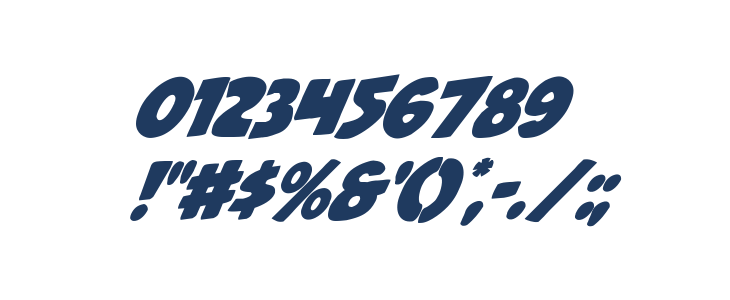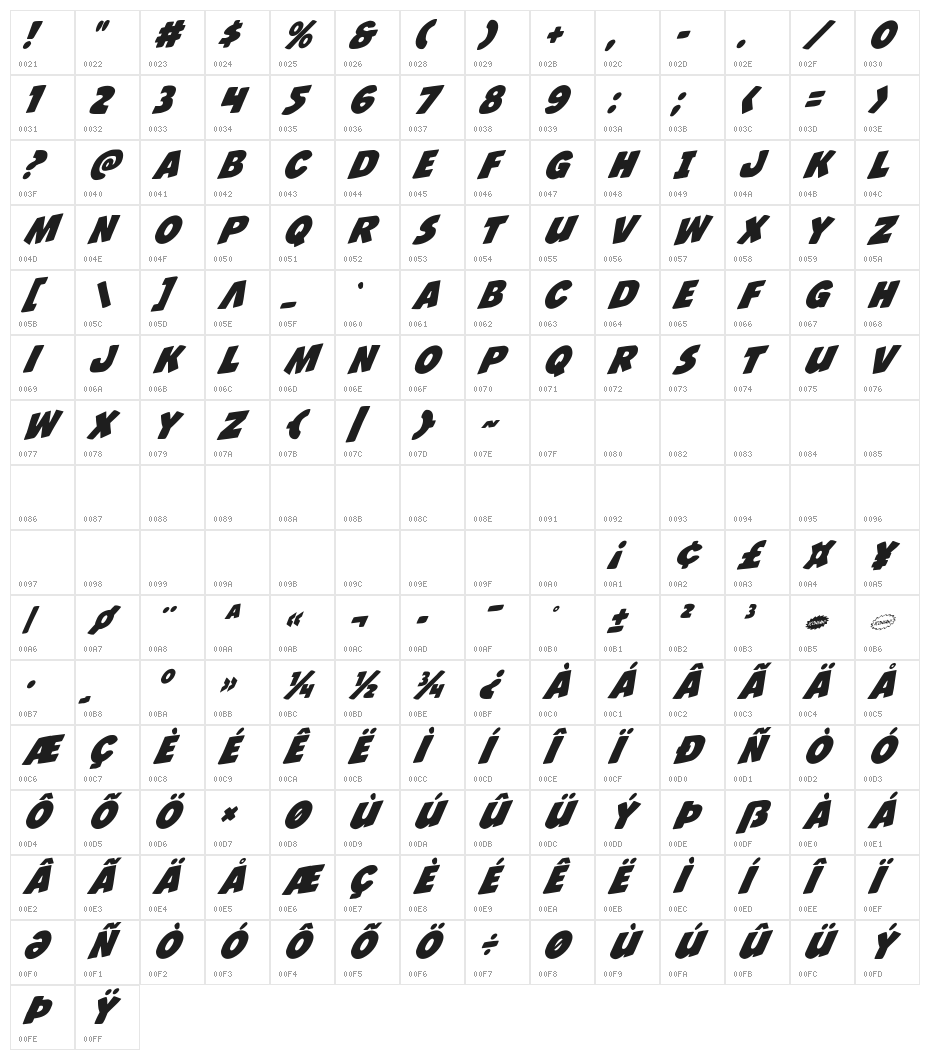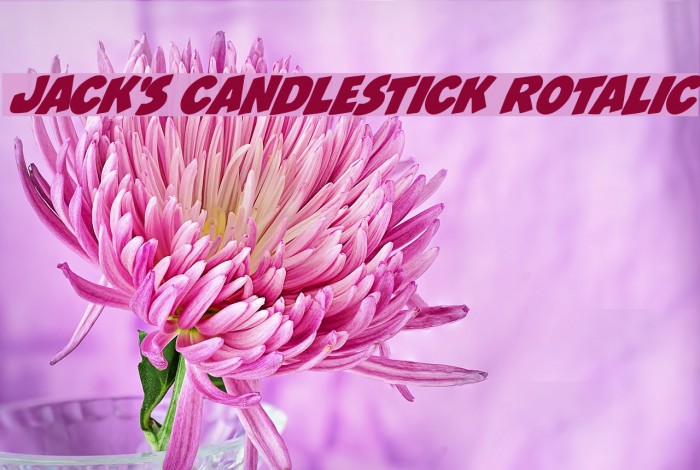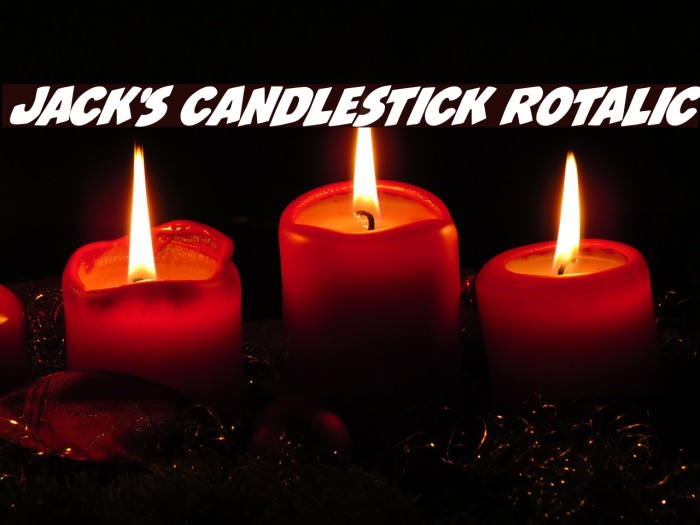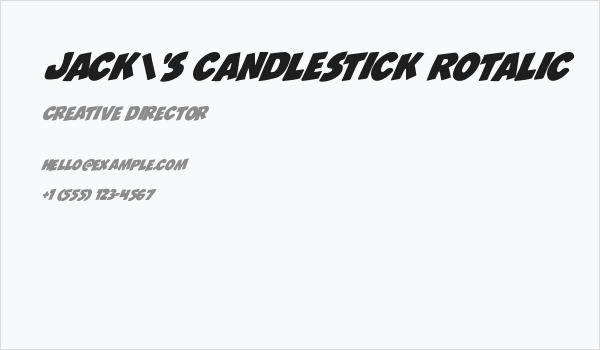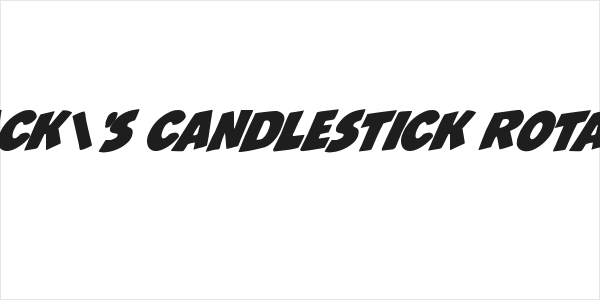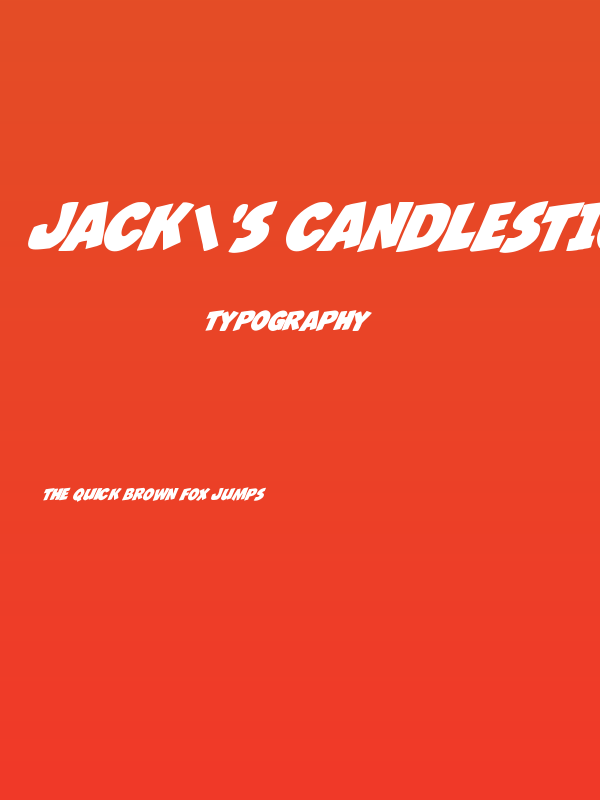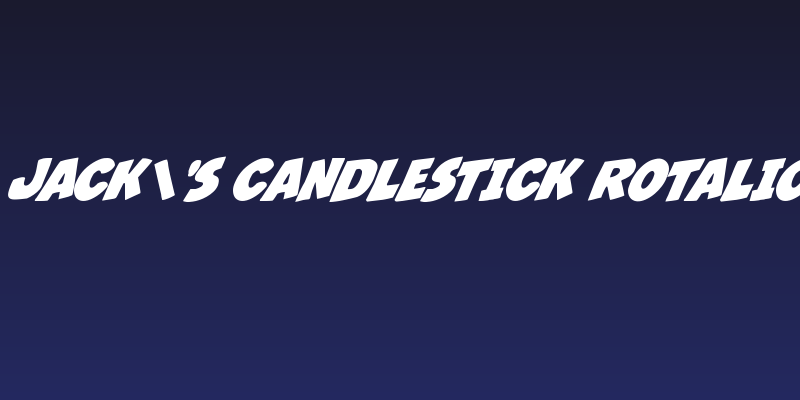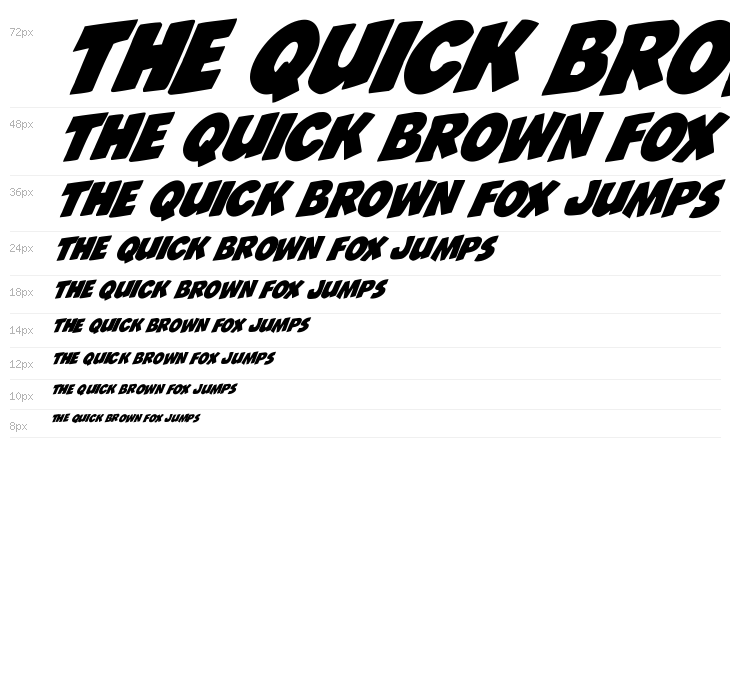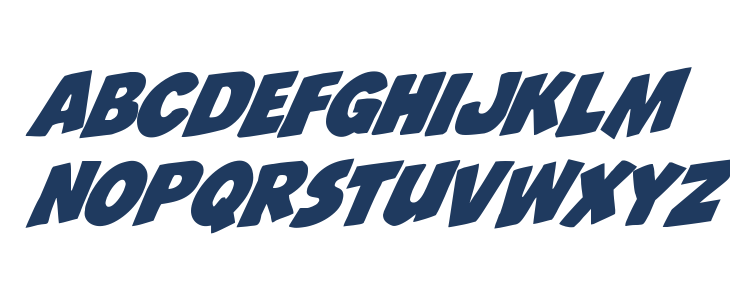
Jack's Candlestick Rotalic Font
Jack's Candlestick Rotalic Description
This font features bold, slanted characters with a dynamic and energetic style. The letters are thick and robust, giving a strong visual impact. The italicized nature adds a sense of motion and fluidity, making it ideal for attention-grabbing designs. The characters are closely spaced, enhancing the compact and powerful appearance. The numbers and special characters maintain the same boldness and slant, ensuring consistency across all elements. This font's high contrast in stroke thickness further emphasizes its bold and assertive nature.